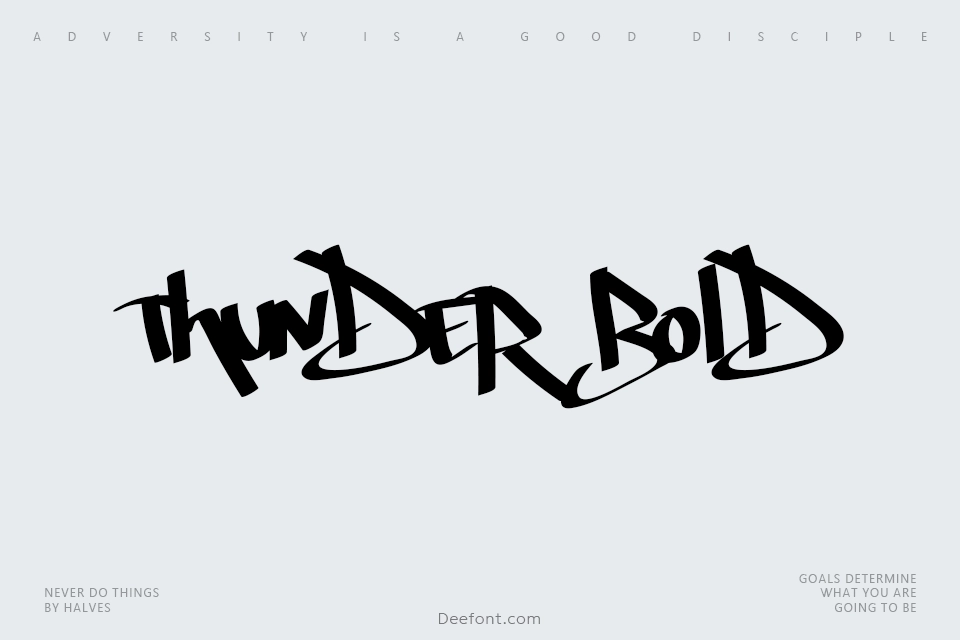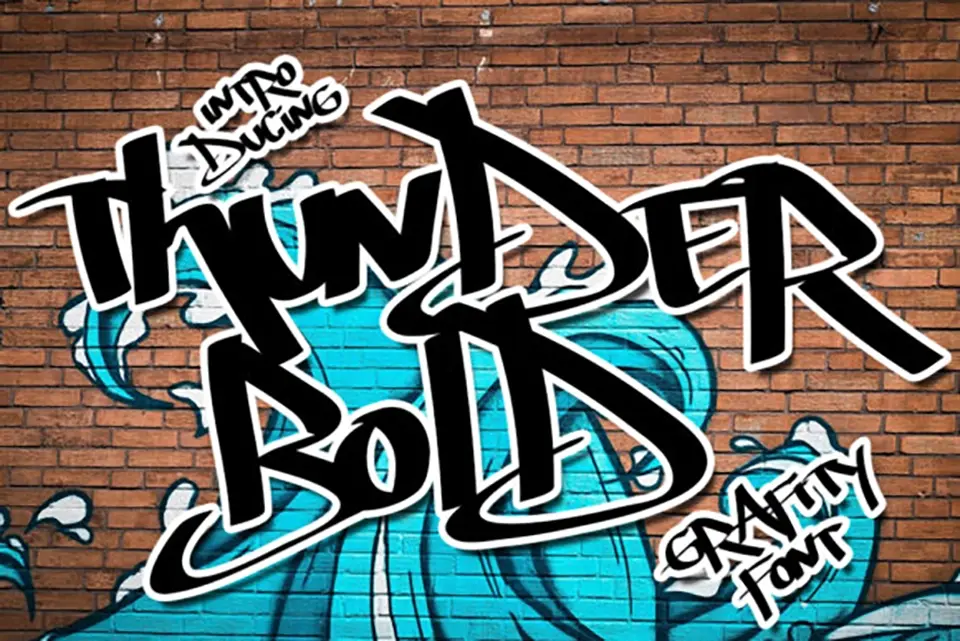
Thunder Bold Font
Thunder Bold is a dynamic script and graffiti font designed for personal use. This hand-lettered typeface features bold strokes and smooth lines, making it ideal for street posters, digital banners, clothing prints, and stickers. With its urban aesthetic, the font effortlessly conveys youth, freshness, and grunge appeal. Thunder Bold’s distinctive character set adds creative flair to logotypes, branding, and packaging projects. The font supports multiple languages and delivers strong visual impact for those seeking contemporary, eye-catching typography.